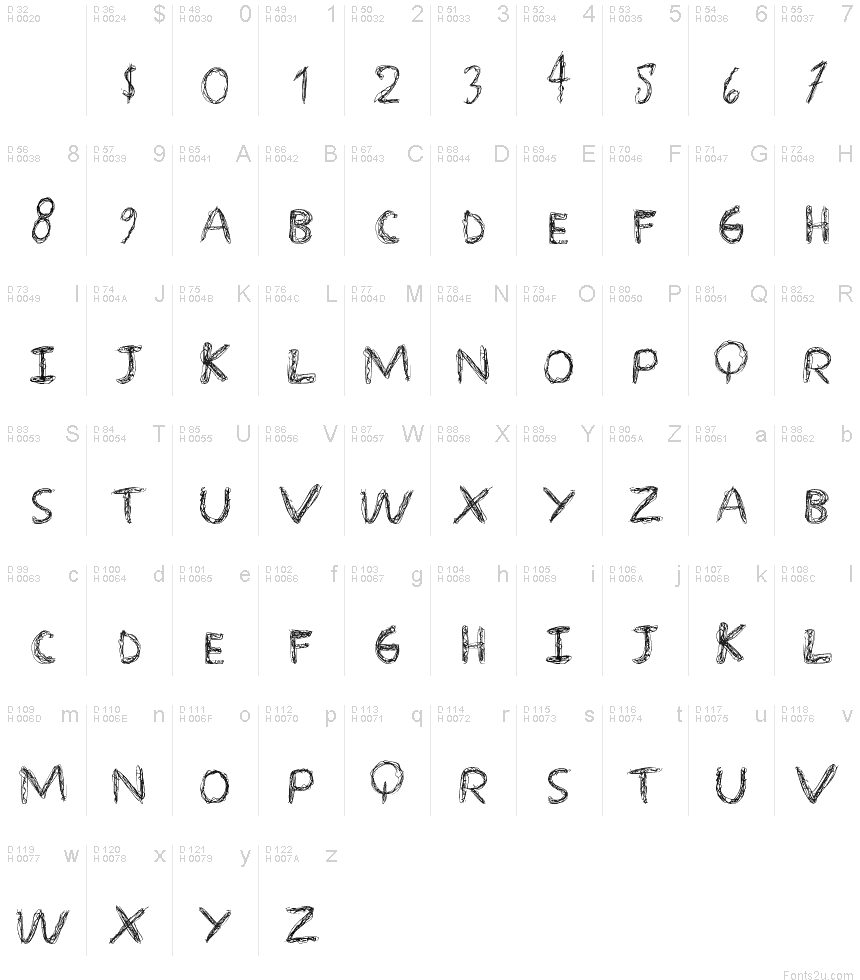
Over Scribble from Xerographer Fonts is a free trash-style script font with frantic, repeatedly traced letterforms. Its tall capitals wobble between narrow and broad shapes, and loose lines stray across the main contours like unfinished sketch marks. The effect is raw and restless.
Punk and DIY graphics suit its scratched-up drawing, particularly gig posters, album artwork, and streetwear merchandise. In magazine publishing, it can turn a cover line or section opener into part of the illustration rather than neutral text.